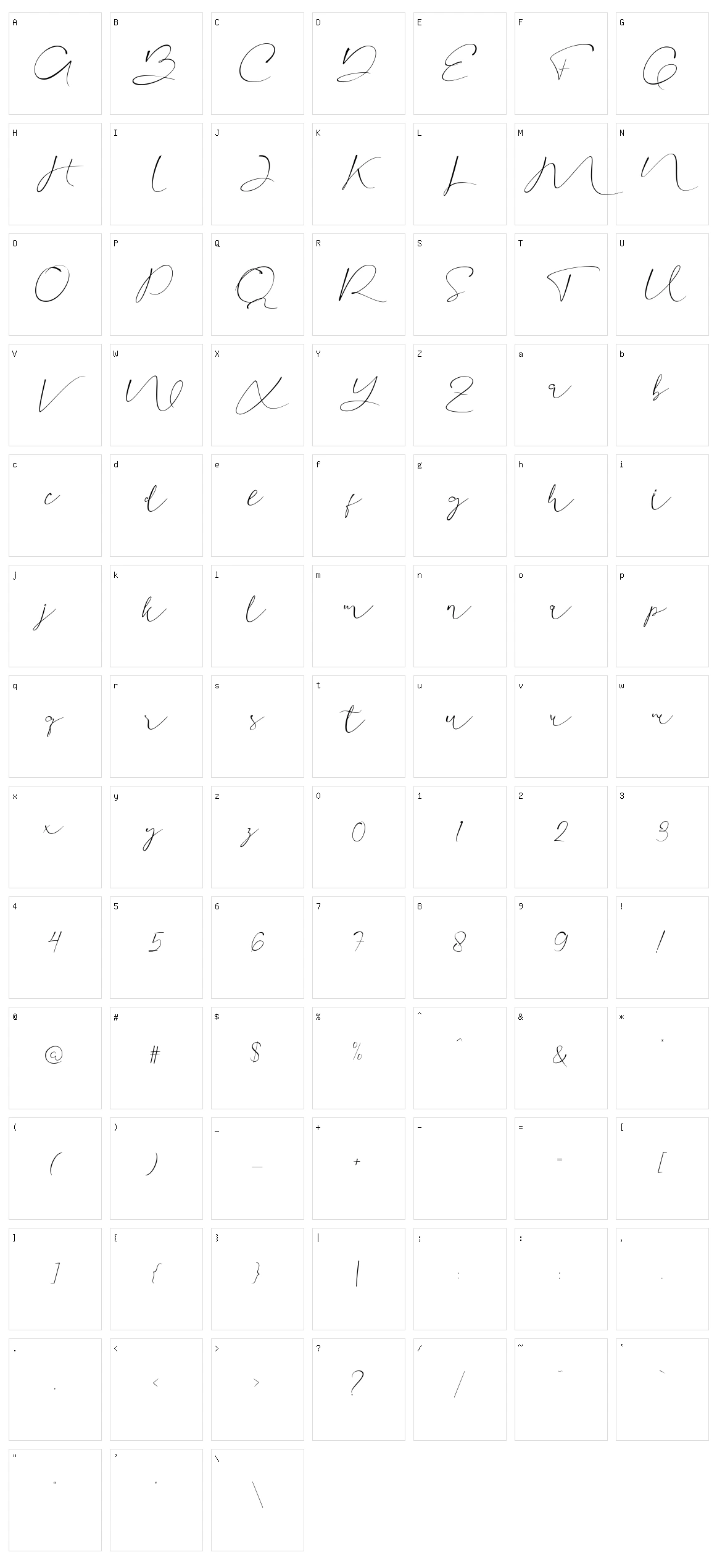
The free font Aullia is carefully designed by Glyphstyle, showcasing a thoughtful balance of creativity and usability and falls under the Script font style. When you download the ZIP file, it contains only 29.12 KB of font files, making it lightweight and quick to download. Please review the license details below to understand permitted usage and distribution rights. If license information is not available, we recommend using this font for personal projects only or contacting the author directly for commercial usage permissions.